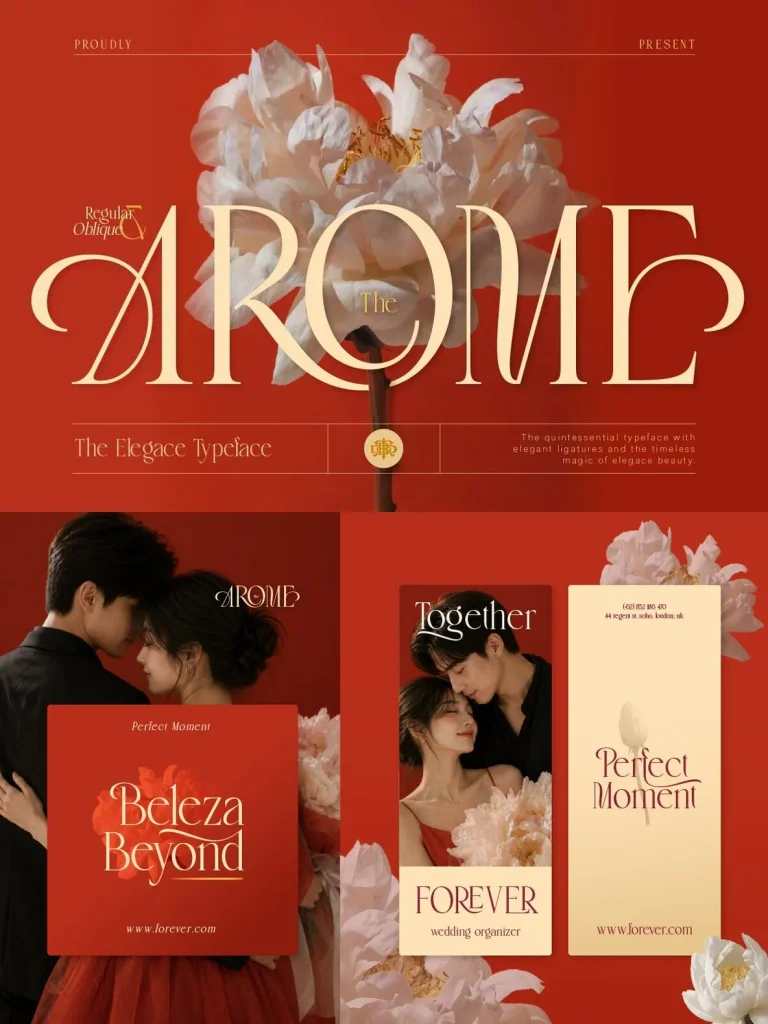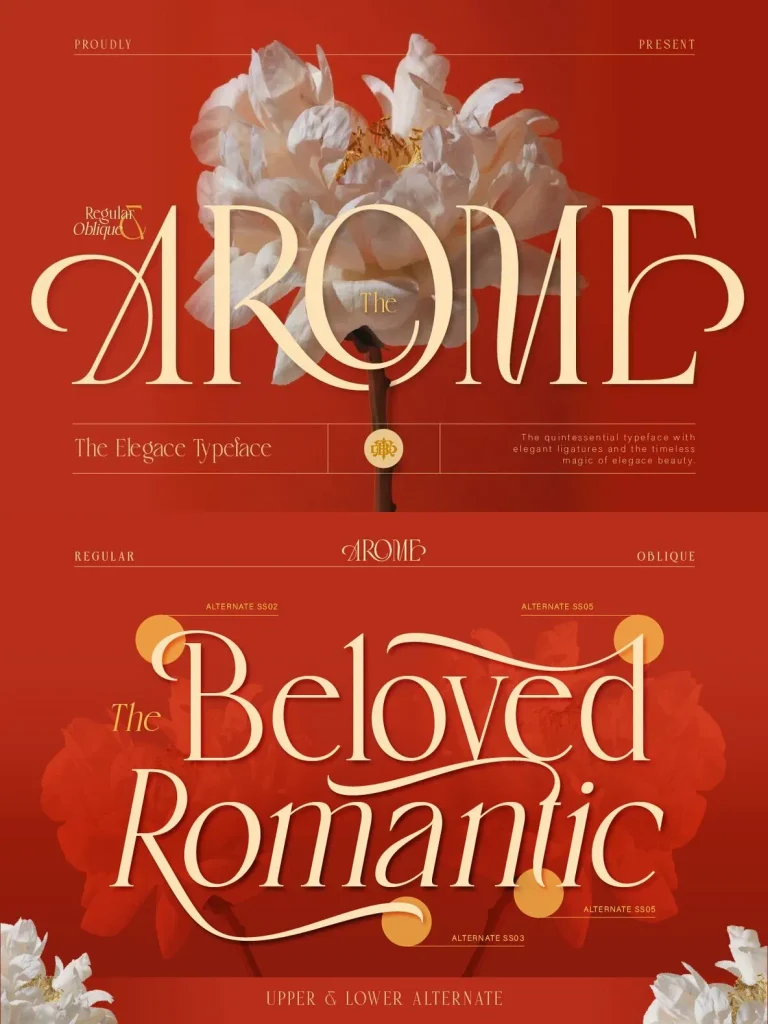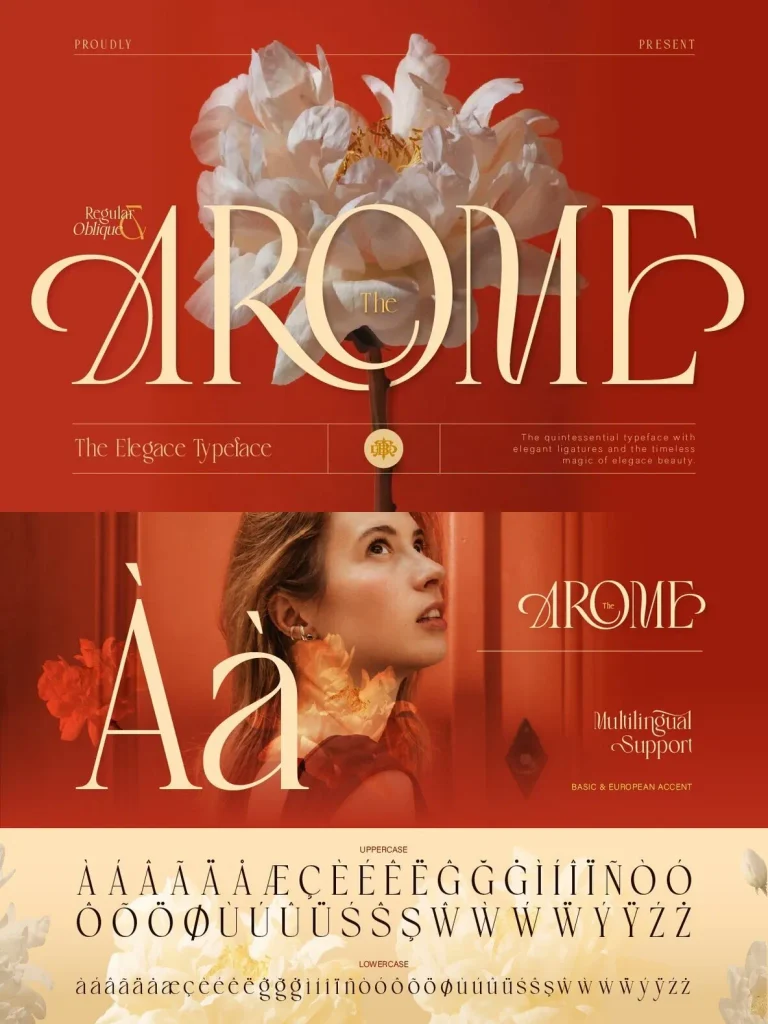
Arome — Romance in Serif Form
Arome is a refined serif typeface made for work that calls for elegance, romance, and timeless beauty. Its graceful curves, high-contrast strokes, and delicate details give the font a luxurious presence that feels both classic and modern. Arome suits refined visual identities, editorial layouts, and display typography where a poised serif voice matters.
The typeface includes Regular and Oblique styles, giving you room to set text with polish, expression, and character. It can feel soft and feminine or bold and editorial, depending on the composition. Arome also stands out through its stylish ligatures and carefully drawn alternates, helping each letter flow naturally for elegant, high-end typography.
Perfect for:
Luxury branding & logos
Wedding invitations
Fashion editorials & magazines
Beauty and lifestyle designs
Packaging design
Social media content
Headlines & display typography
Alternates
Ligatures